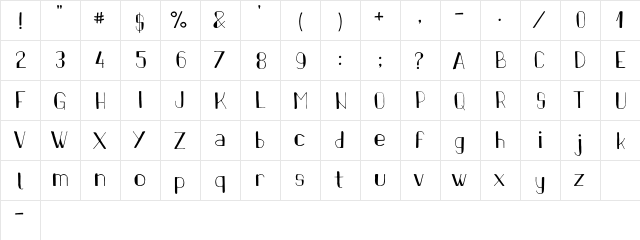
Pinon DEMO
| Foundry | Darko Kuzmanovic |
| Designer | Darko Kuzmanovic |
Design Context for Pinon Typeface
Pinon takes a measured approach to typography — its balanced proportions and neutral character make it a reliable workhorse for both digital and print work.